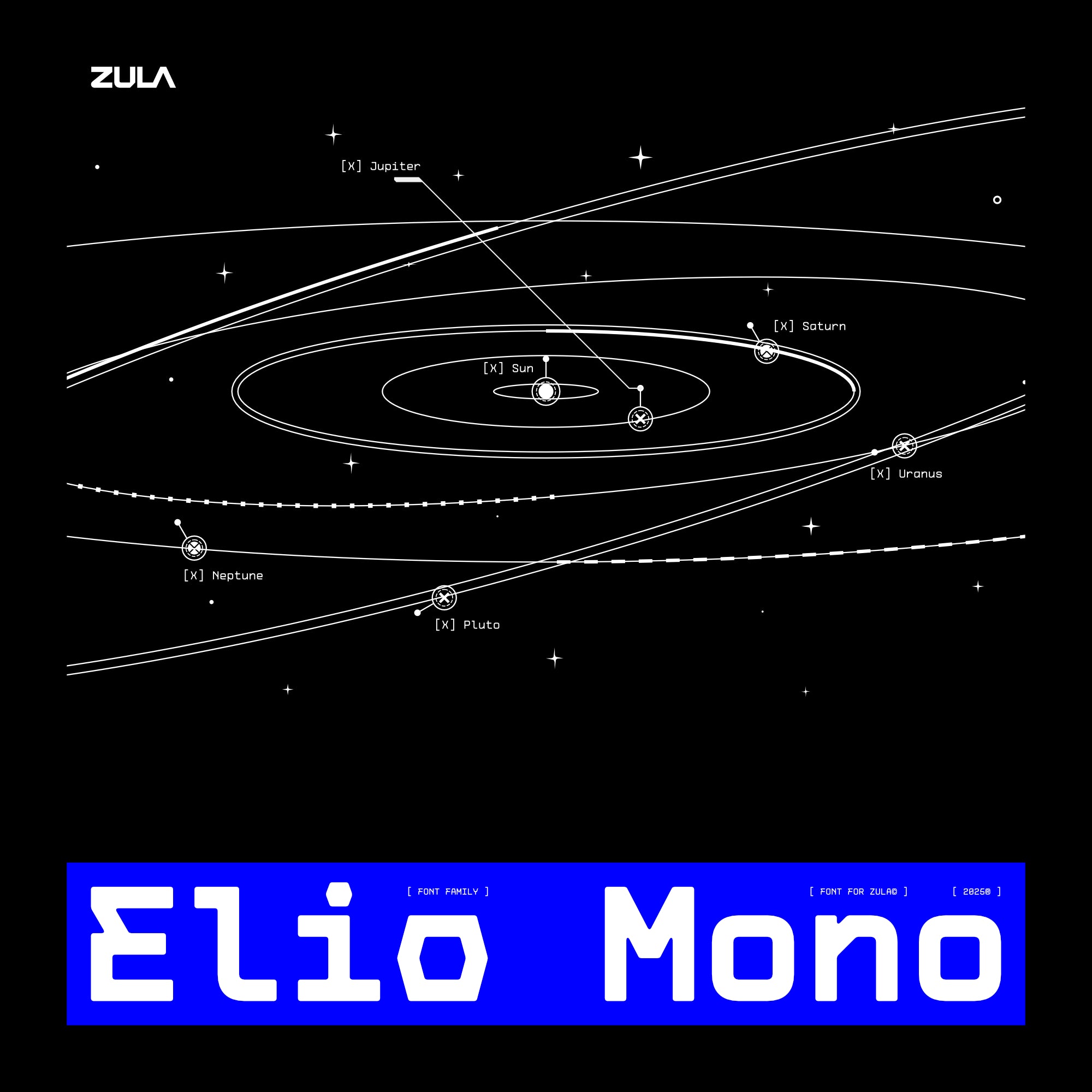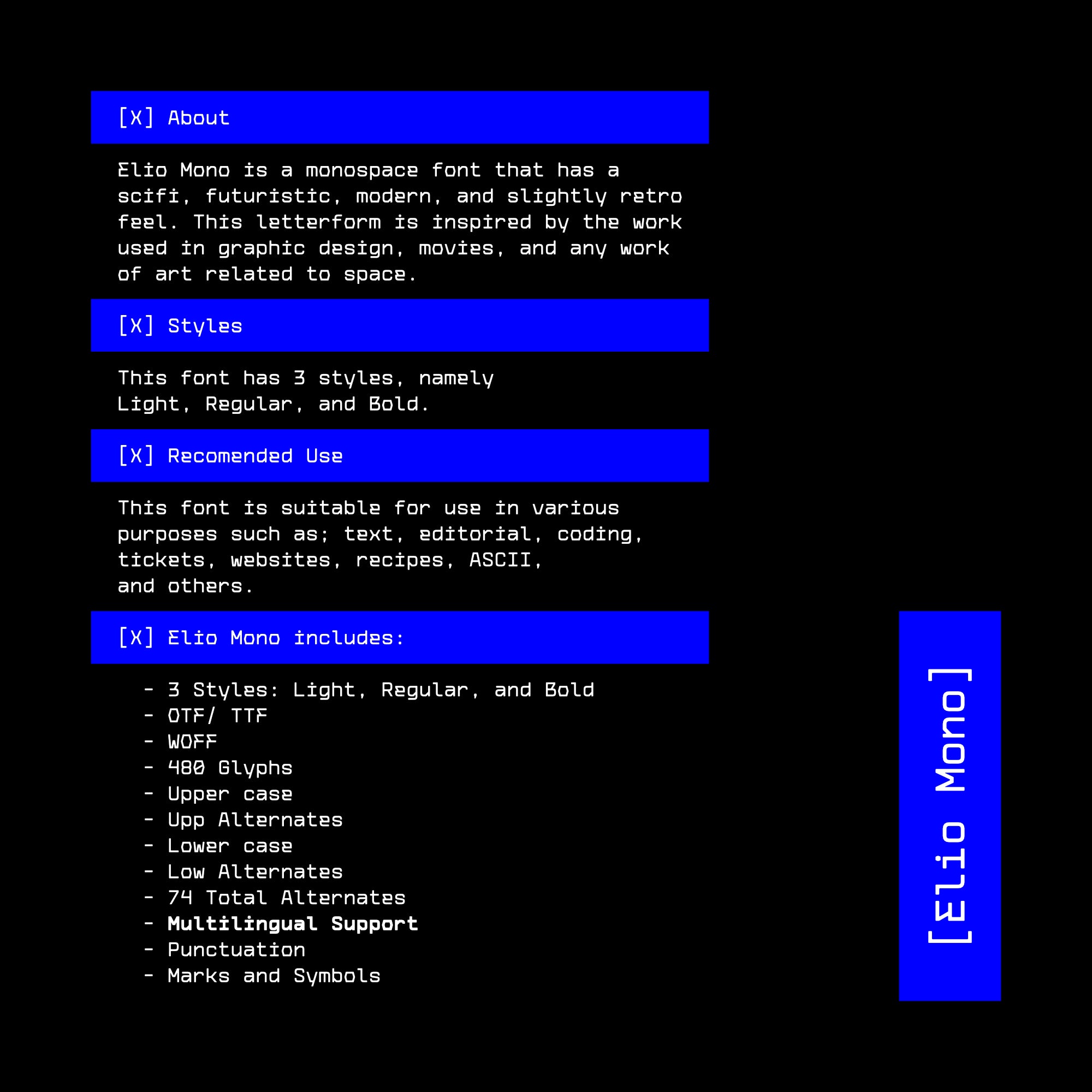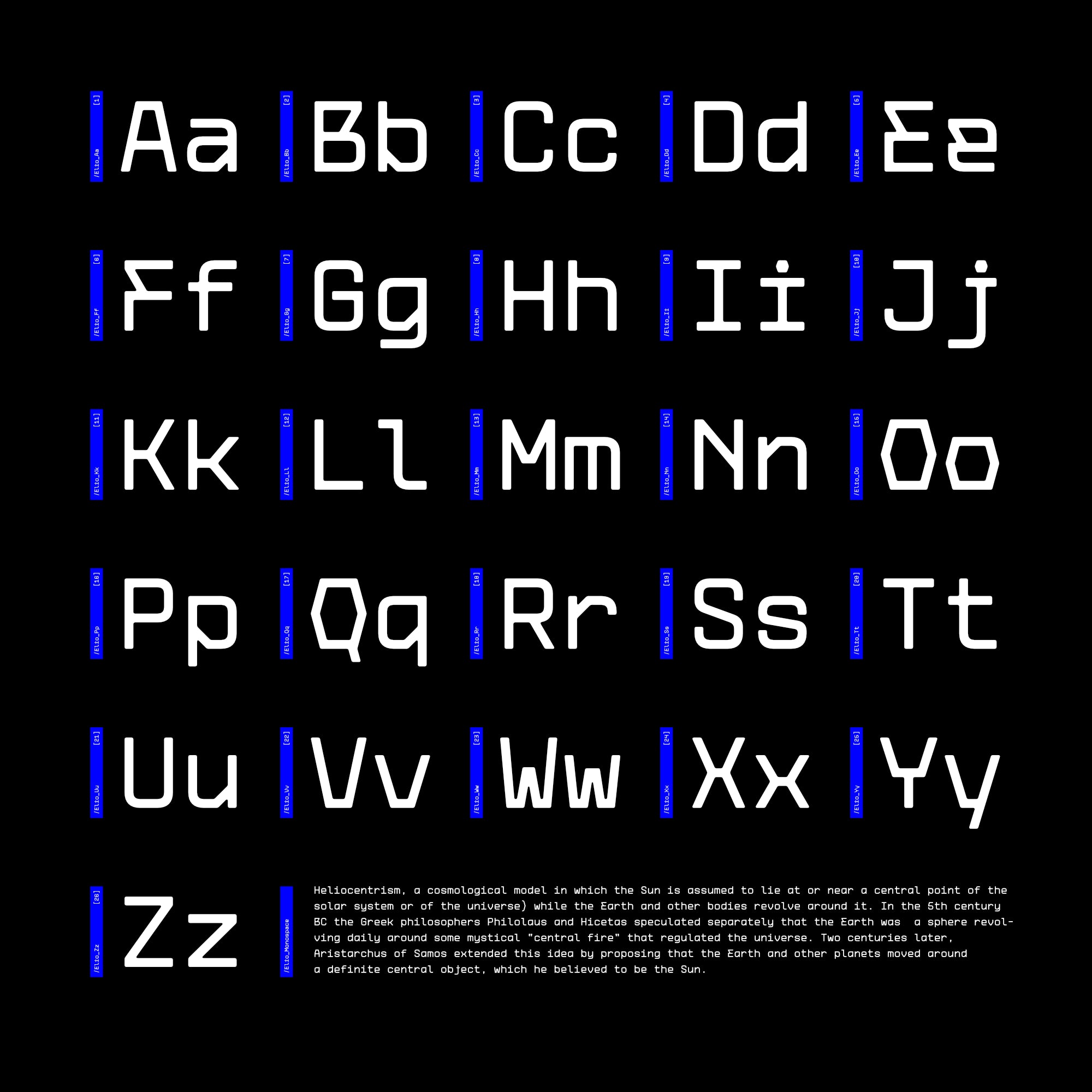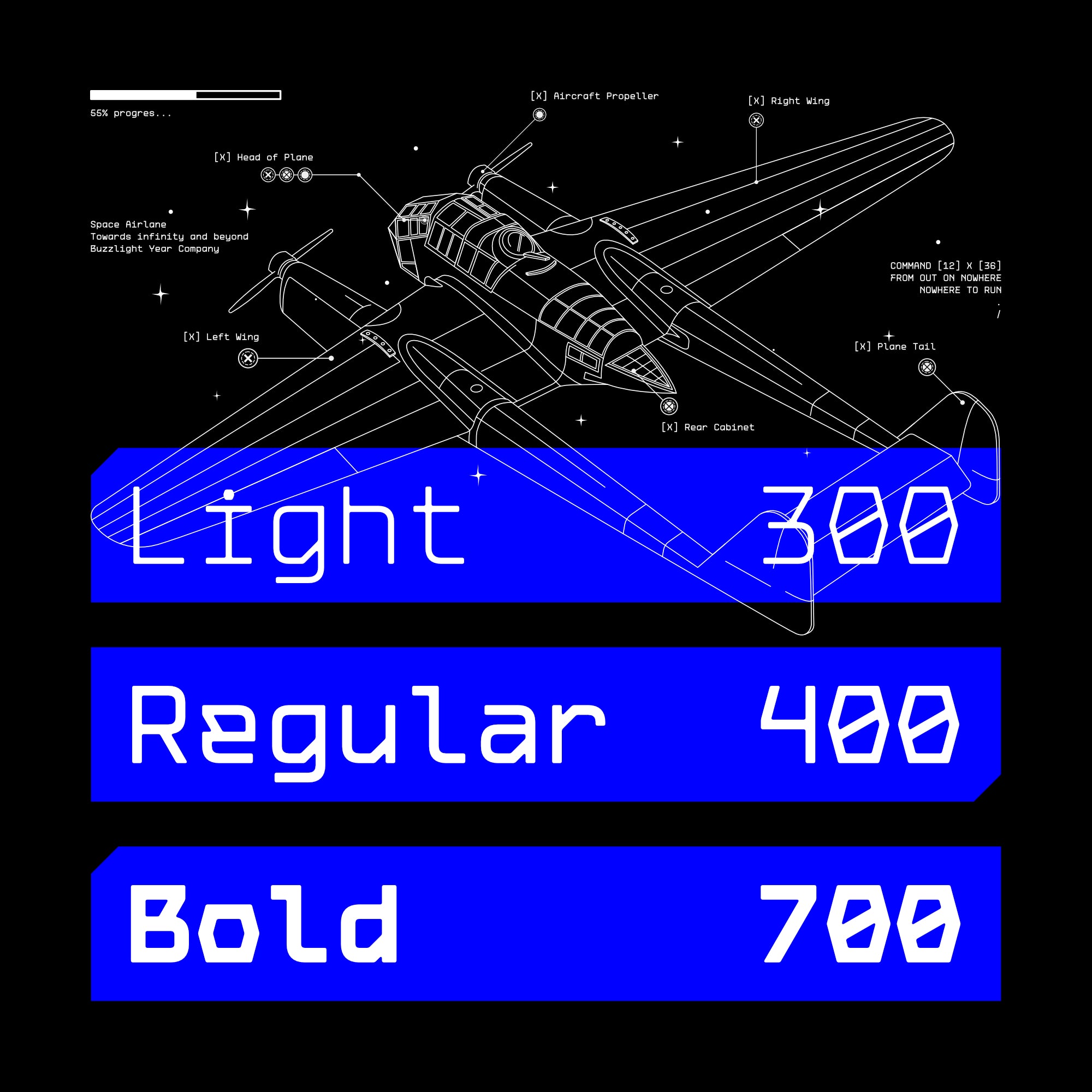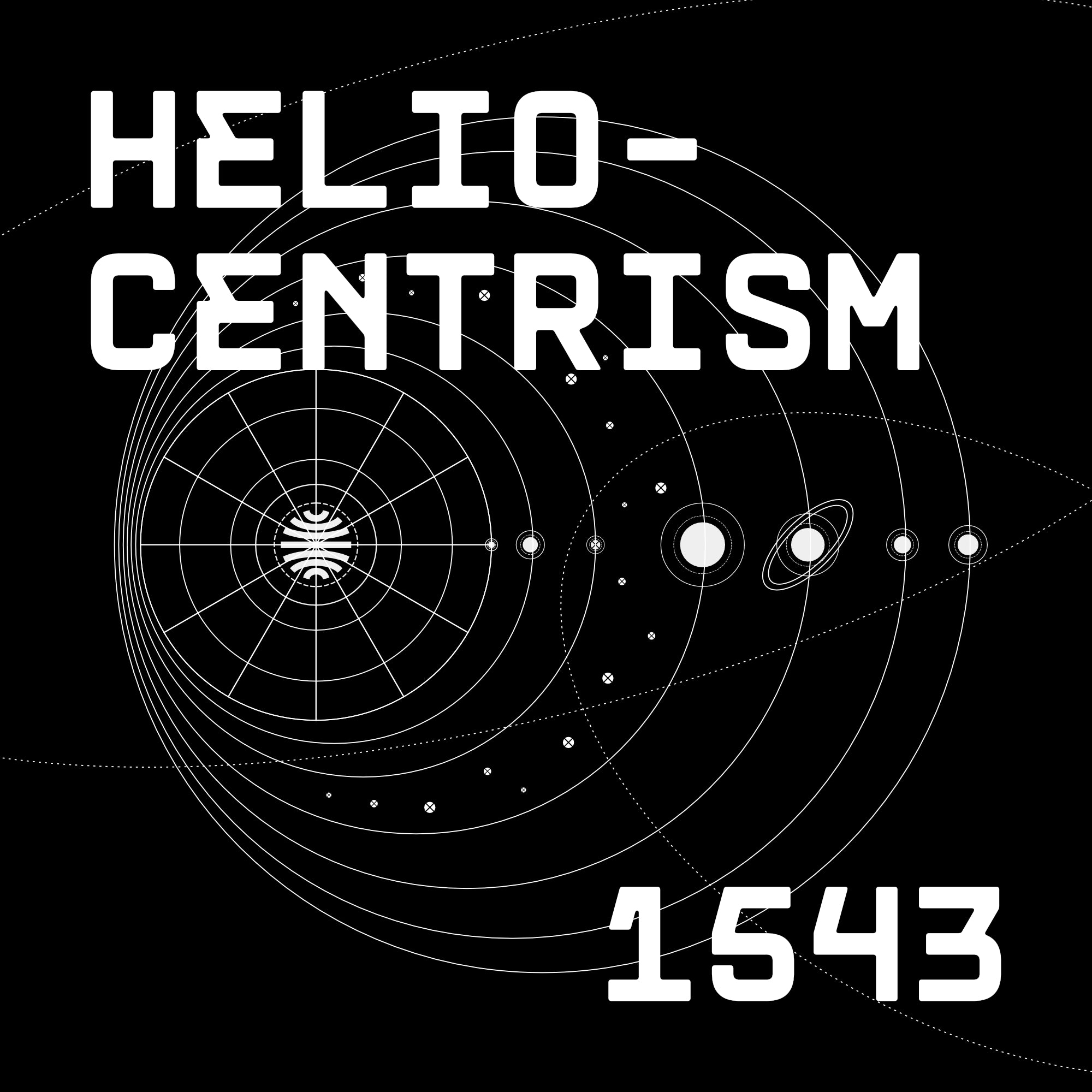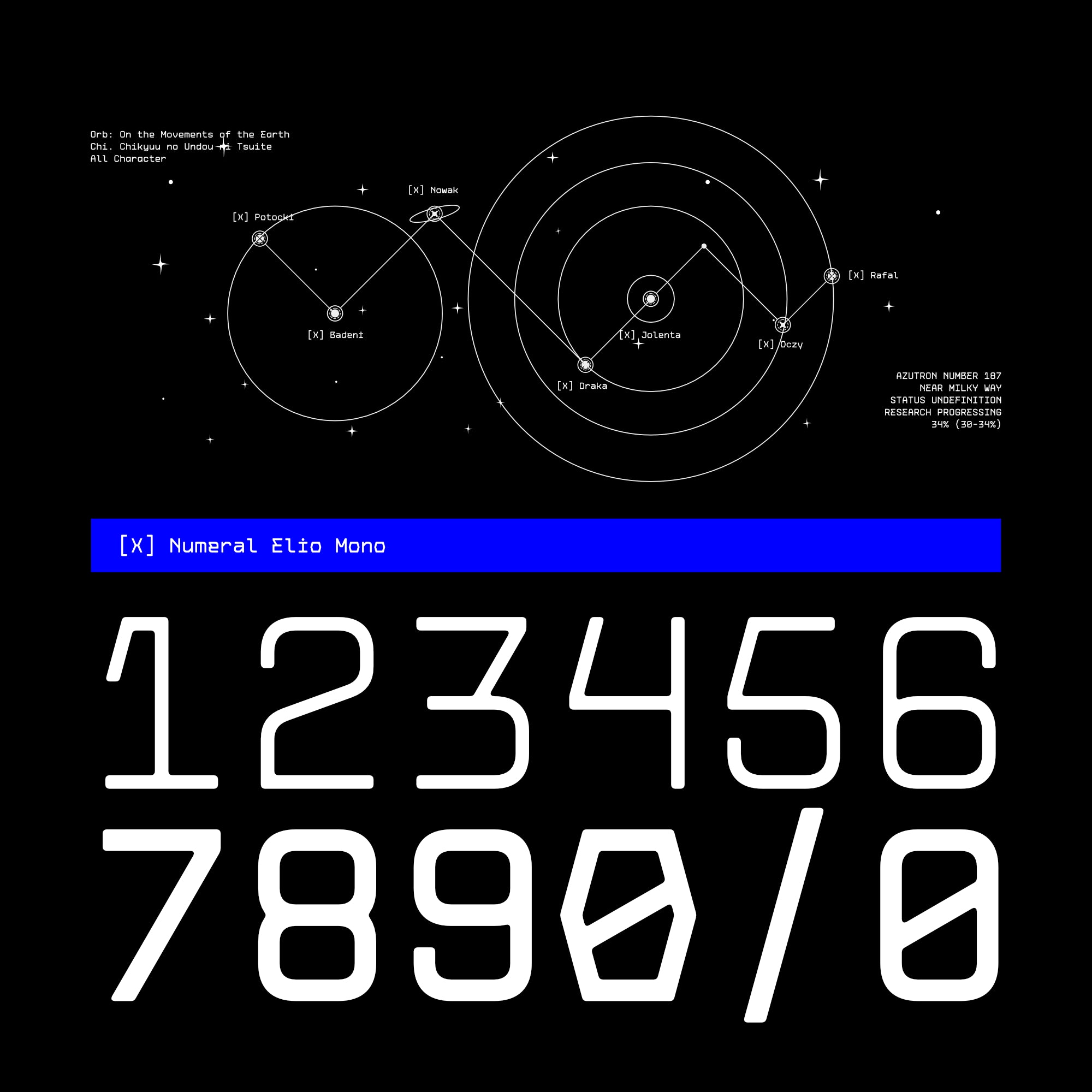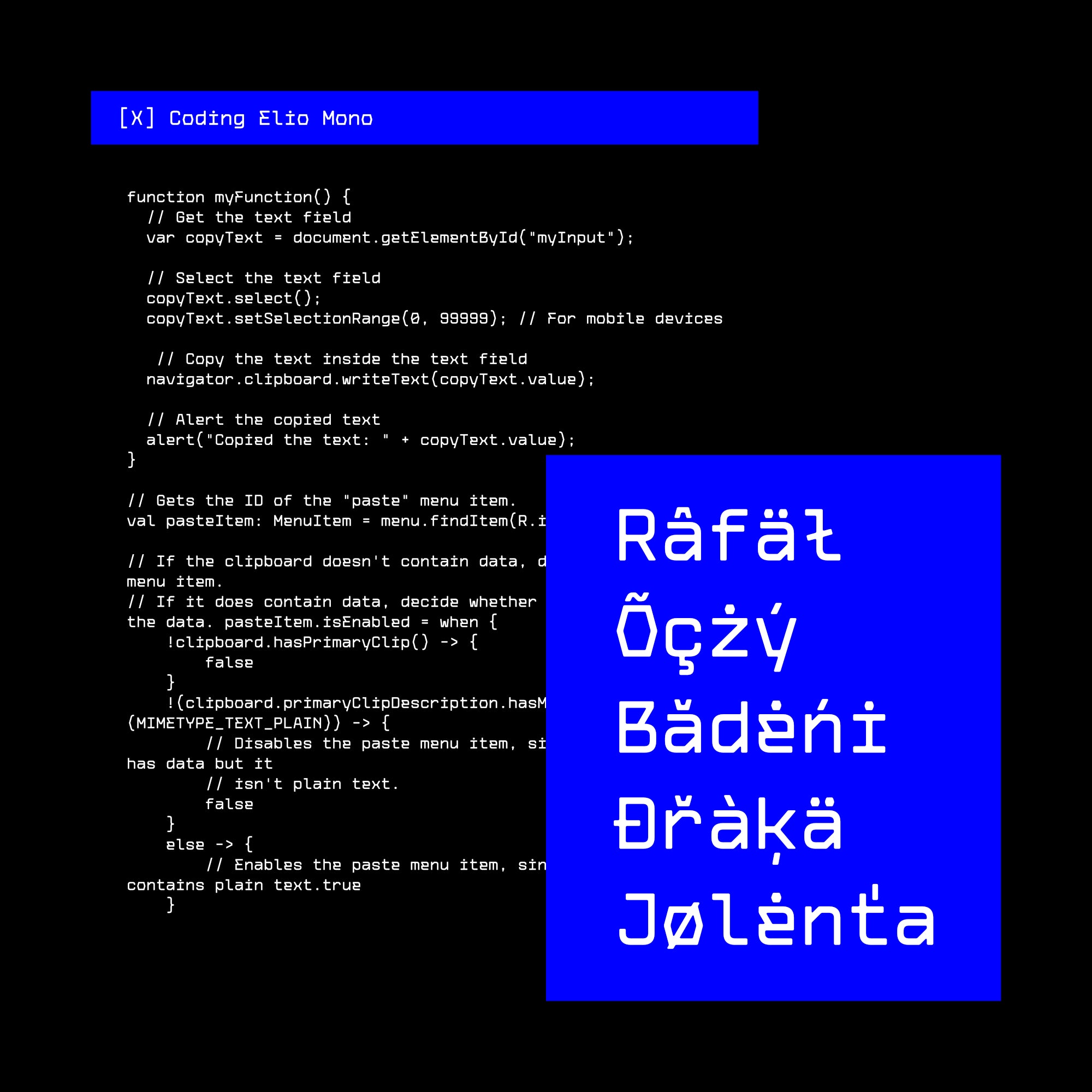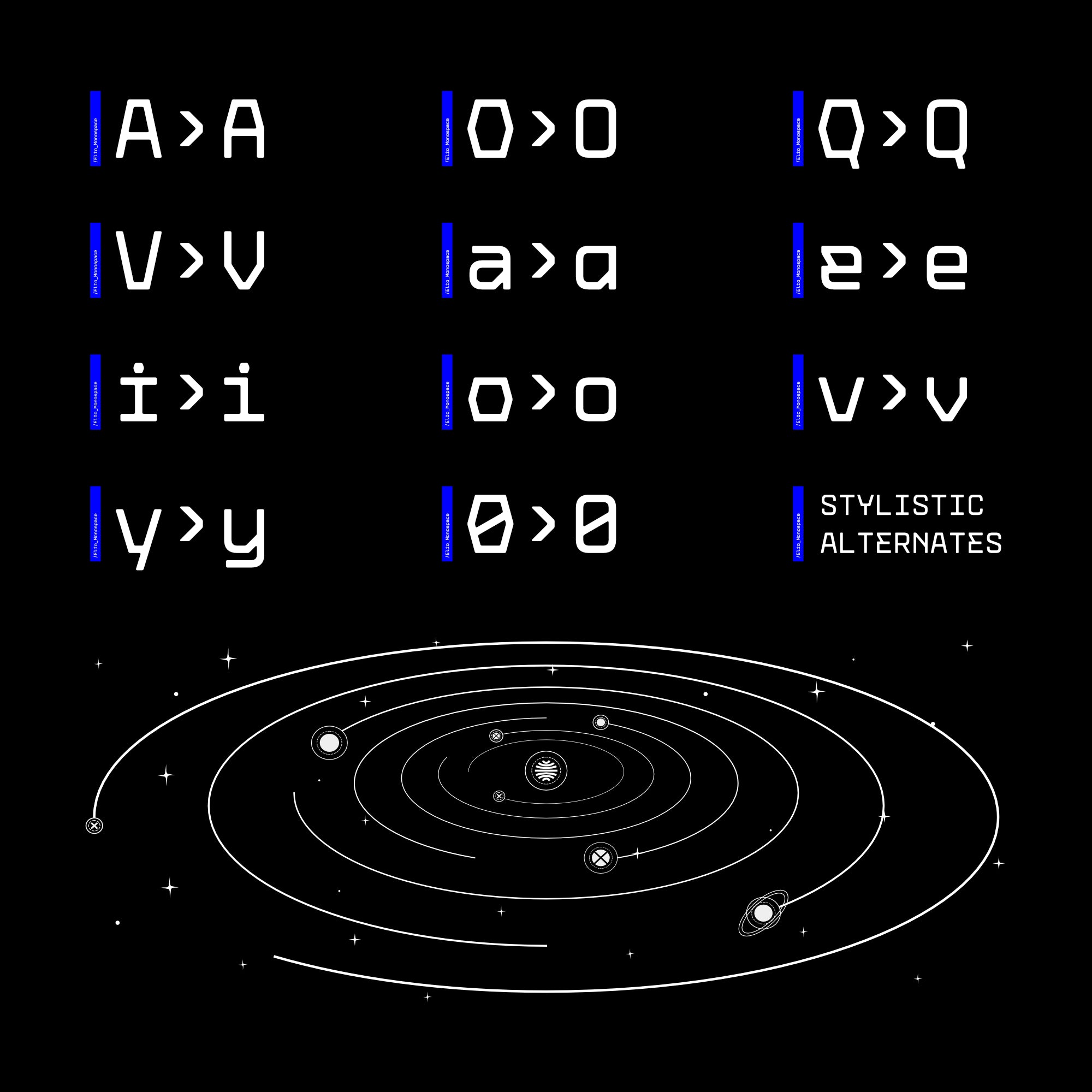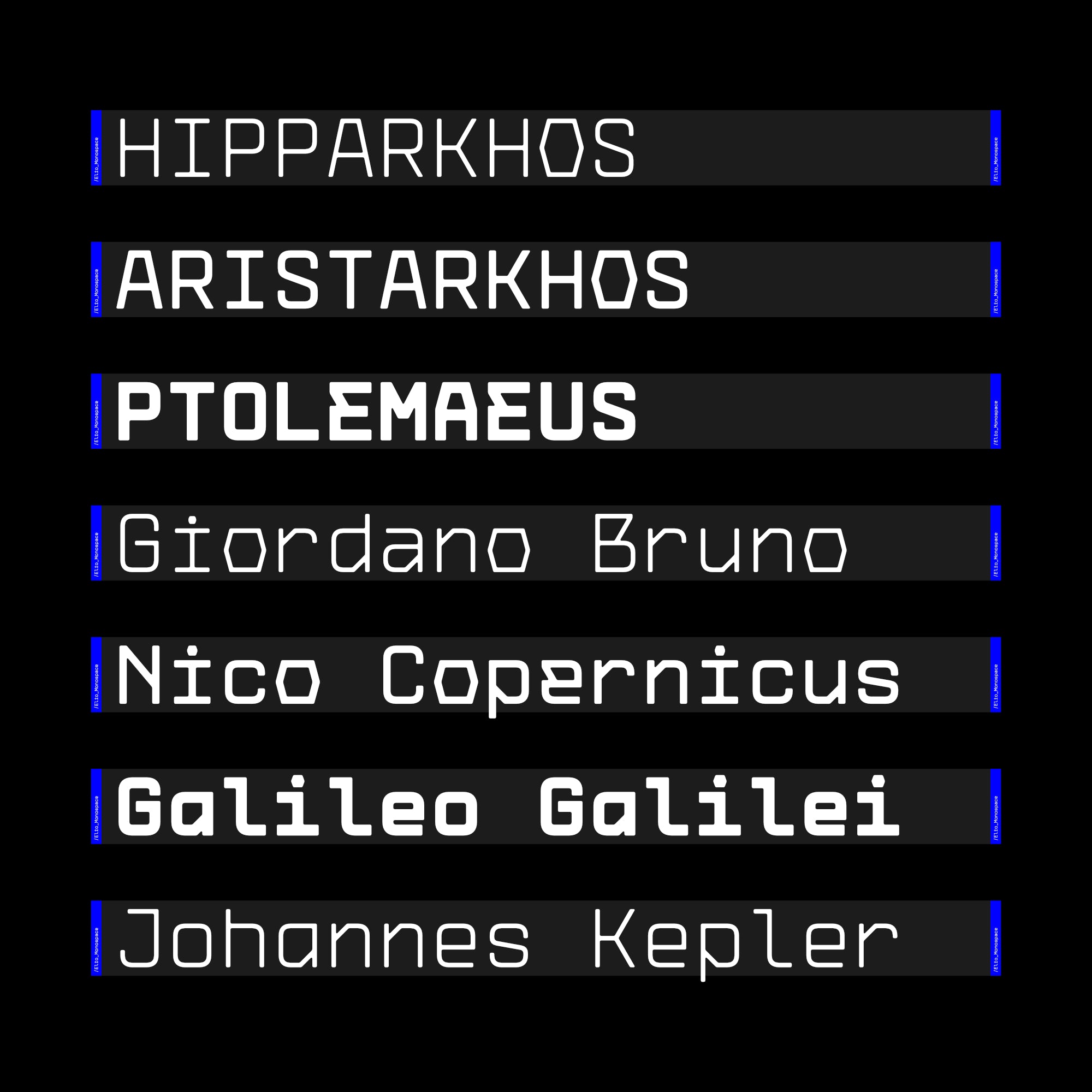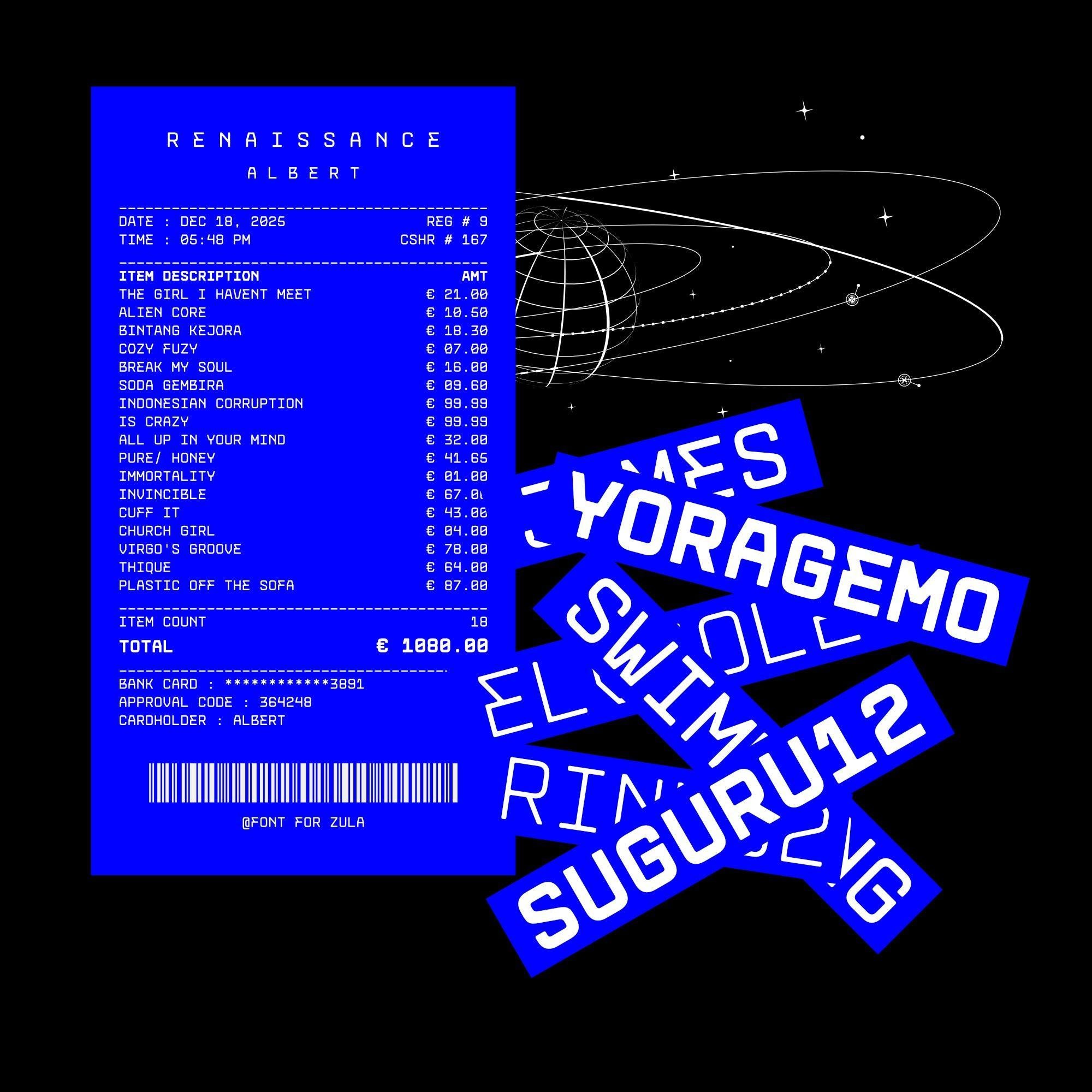
Elio Mono Font Family
The Elio Mono Font Family is a monospace typeface available in three styles: Light, Regular, and Bold. It includes 480 glyphs, supports multiple languages, and offers a range of alternates, making it suitable for various text applications.
Ideal for futuristic and retro-inspired graphic design projects. Perfect for editorial layouts, website interfaces, coding environments, and promotional materials, ensuring a distinctive and modern aesthetic that enhances readability and visual appeal.